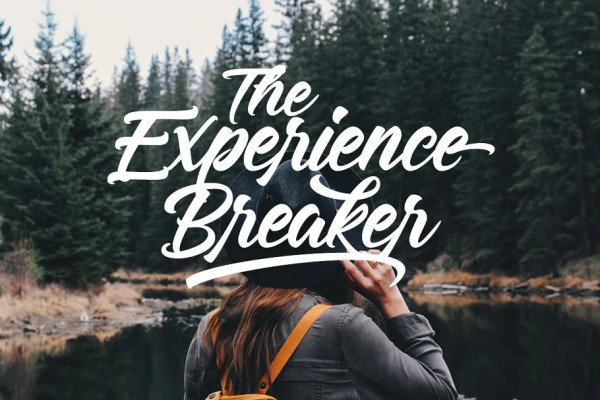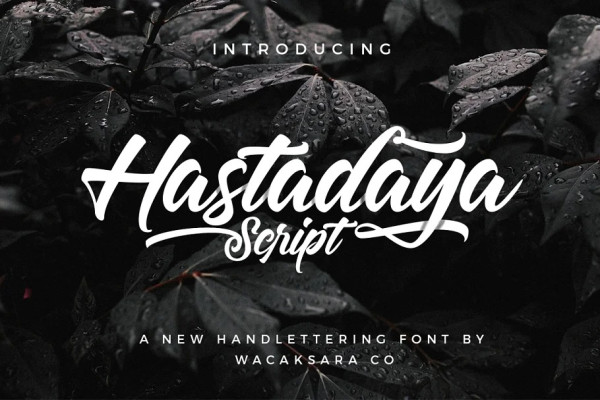
Hastadaya Script Font
Hastadaya Script Font. In this time calligraphy and handlettering become a trend, so many people from many different backgrounds wanted to show and share their result on paper for hanging poster, sticker, a logo for yourself sand mostly sharing on social media. Hastadaya Script Font is coming for it, to help you creating hand-made lettering typography in an instant!
Hastadaya is available with so many variations on each characters in Opentype include Uppercase, Lowercase, Numerals & Punctuations, Stylistic Styles, Ligatures, Discretionary Ligatures, and Titling to make it look even more natural than a standard font. You will also discover extras swash added to give that finishing touch to your texts.